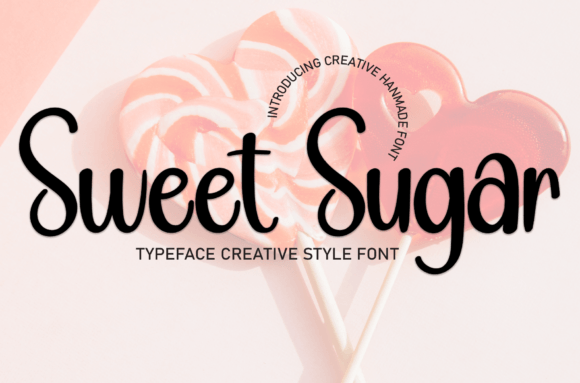
Looking for the best font for your wedding card? Look no further than Sweet Sugar Font! This script font, created by the talented William Jhordy, is the perfect choice for anyone looking to add a touch of sweetness and friendliness to their designs.
With its creative and cute style, Sweet Sugar Font is sure to capture the attention of anyone who sees it. Whether you're designing wedding invitations, cards, or any other project, this font is sure to make your work stand out.
But Sweet Sugar Font isn't just cute and creative – it's also highly versatile. Its script style makes it perfect for a wide range of applications, from formal wedding invitations to casual greeting cards. And with its handwritten look, this font adds a personal touch that is sure to delight your clients and guests.